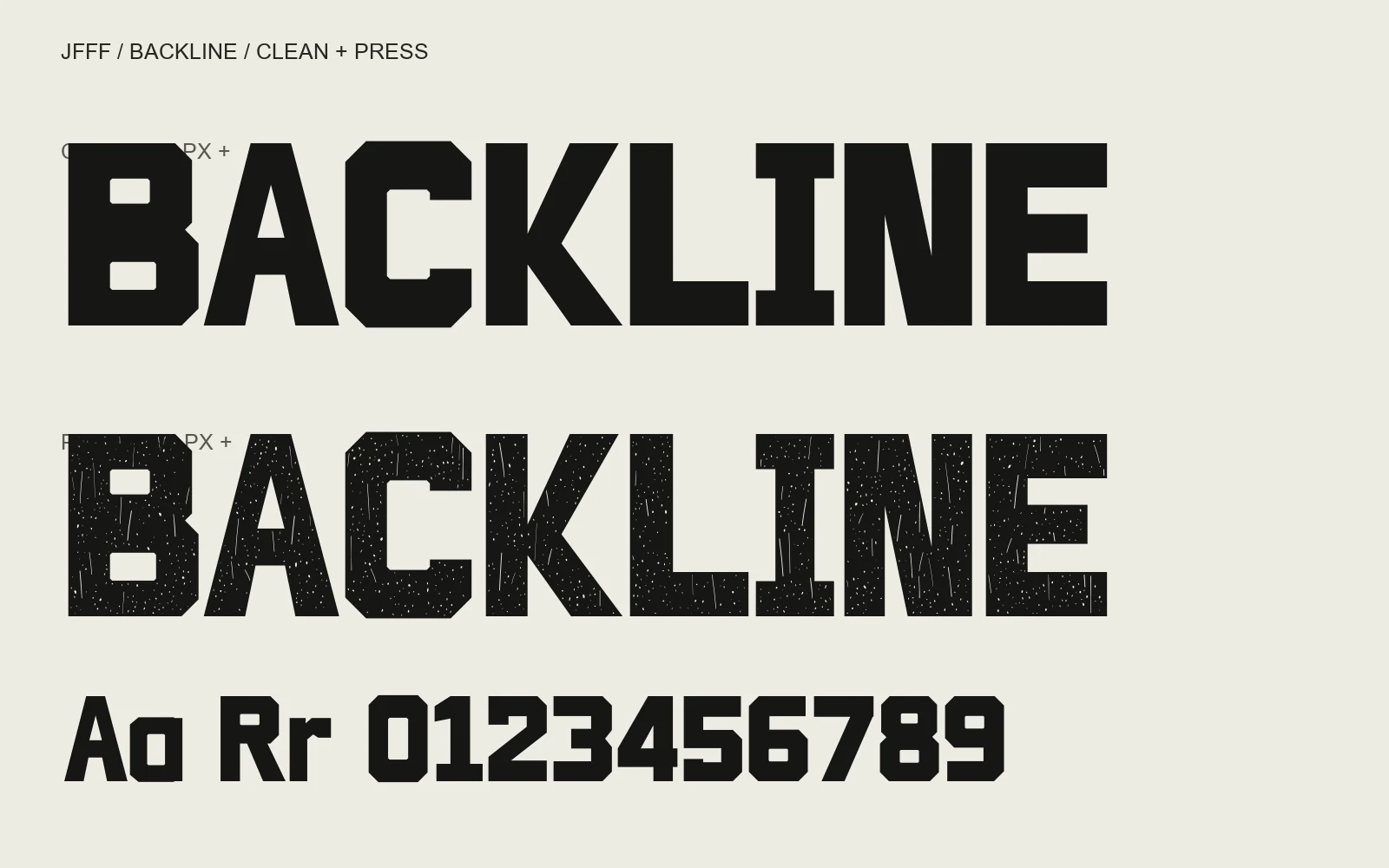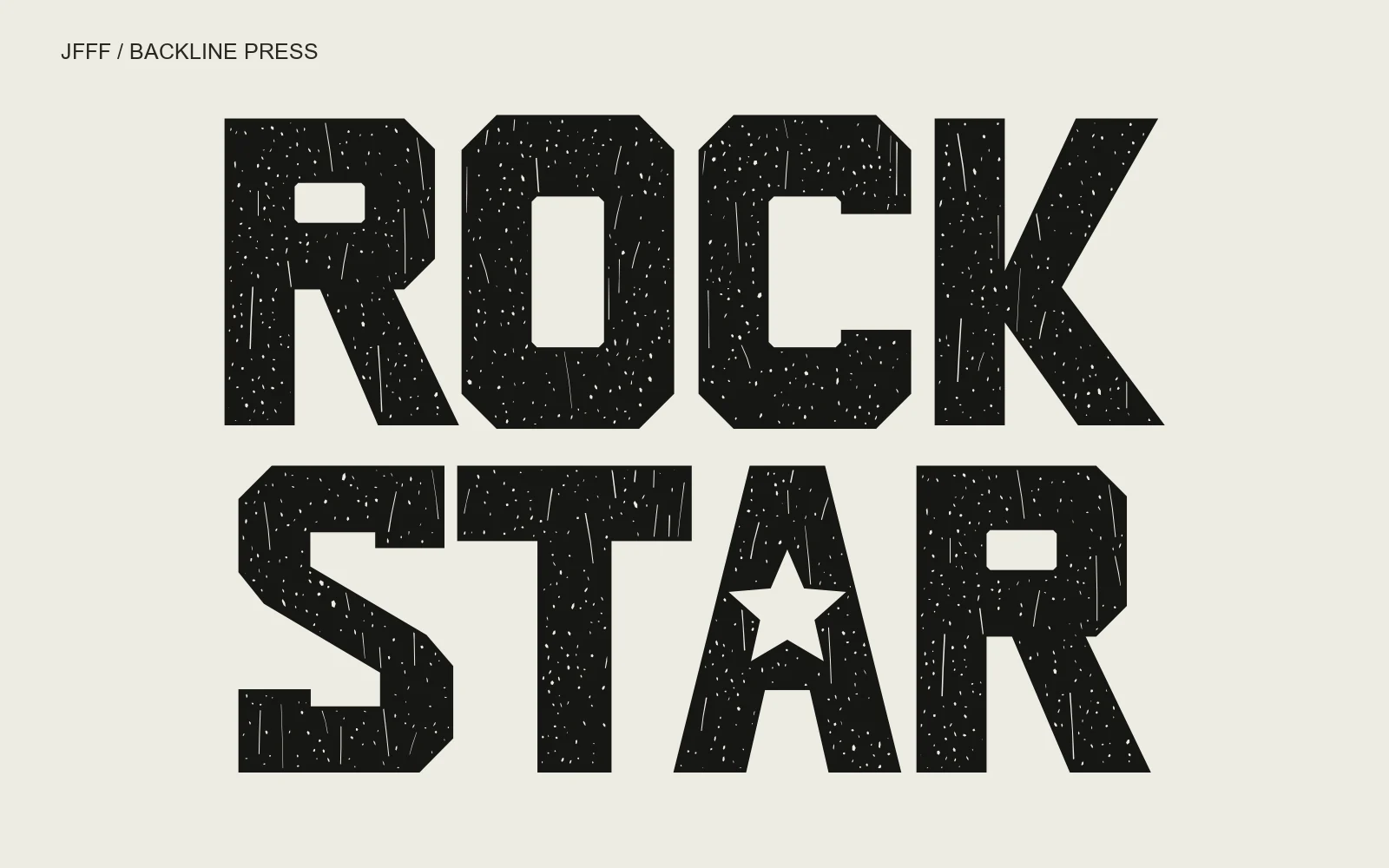
Backline distressed block font spelling ROCK STAR, with an optional star-shaped A counter.
Clean: 48 px+ web / 36 pt+ print. Press: 96 px+ web / 72 pt+ print. Use a text face for paragraphs and small labels.
Backline is a condensed block display font for music posters, album covers, event identities and bold web headings. Thick stems, rectangular counters and clipped corners give short titles a strong silhouette.
Clean keeps the solid letterforms for headings at 48 px and above. Press adds fine vector scratches and ink wear for titles at 96 px and above. Both faces share widths and kerning, so switching them preserves your line lengths. Repeated letters repeat the same texture.
A readable triangular-counter A is the default. Enable stylistic set 01 (ss01) for Star A in either face. On the web, use font-feature-settings: "ss01" 1. The alternate preserves the ordinary A’s width; it changes uppercase A only.
Clean: 48–320 px on screen or 36–240 pt in print. Press: 96–480 px or 72–360 pt. At small caption sizes, the narrow counters and distressed details lose clarity. Use another face for body copy, navigation and dense tables. No Hangul, Cyrillic or complete Greek coverage is included.
Music posters, album covers, event identities and bold web titles. Start at 48 px for Clean or 96 px for Press. Use another face for body text.